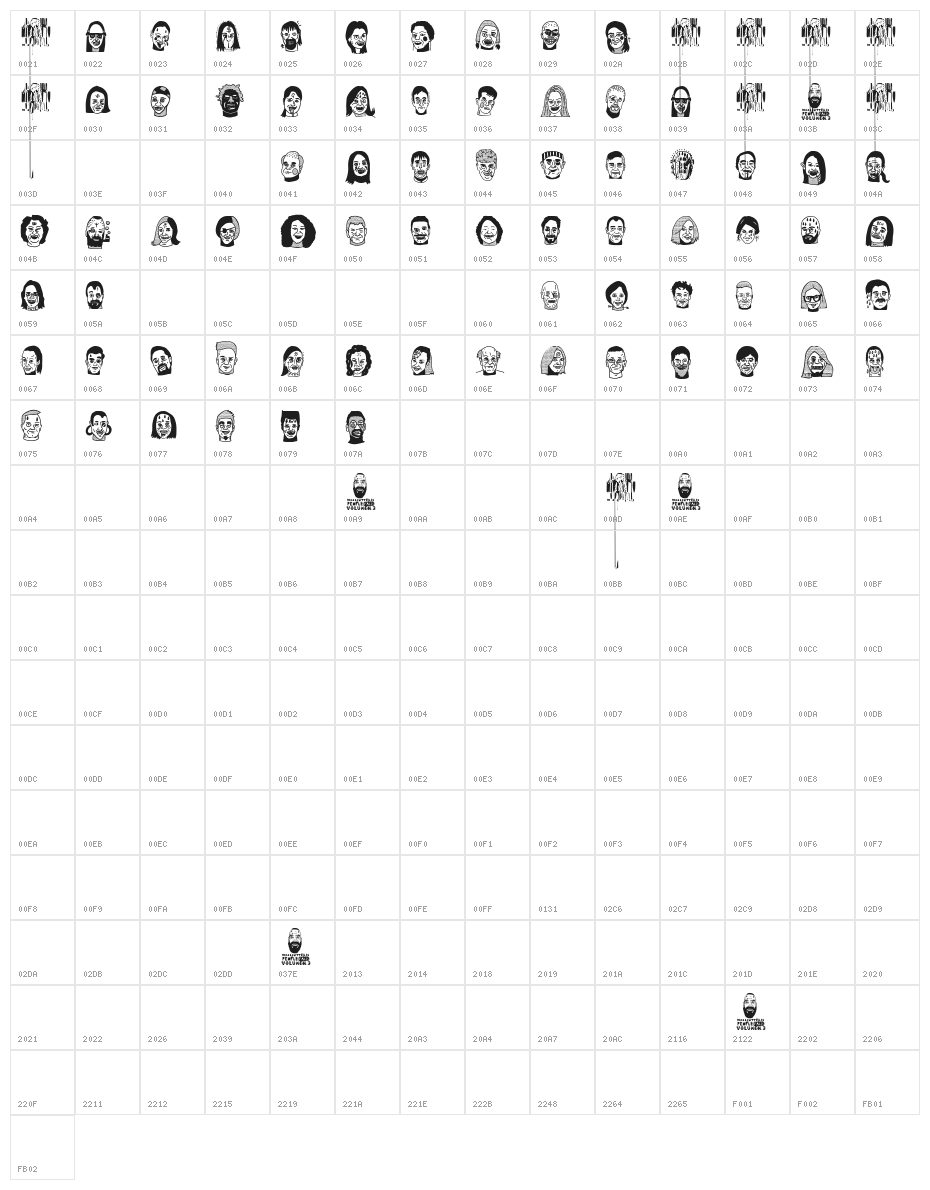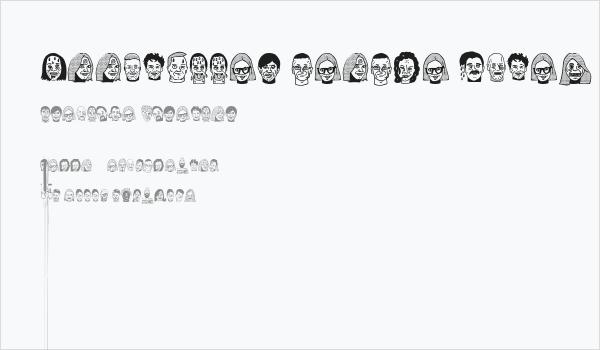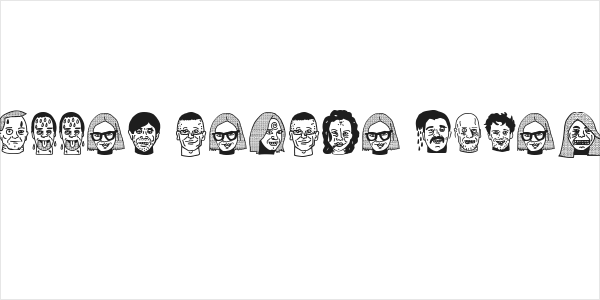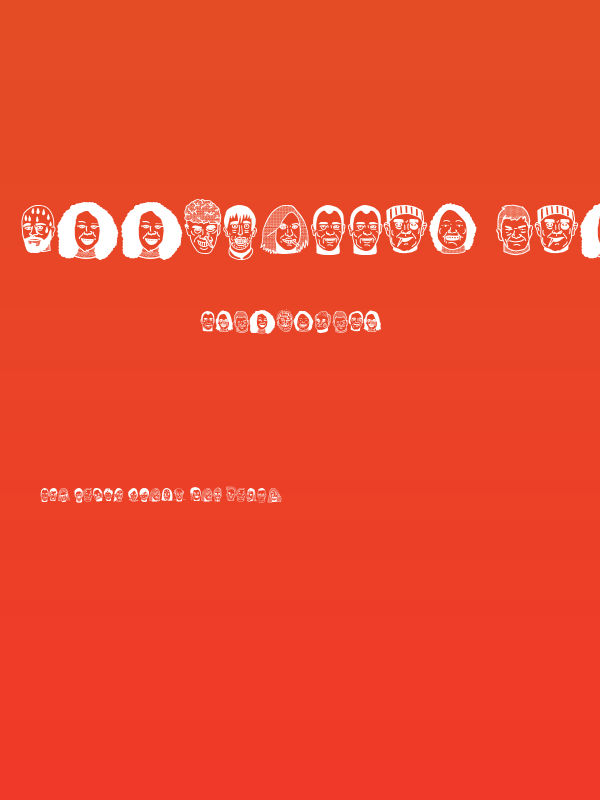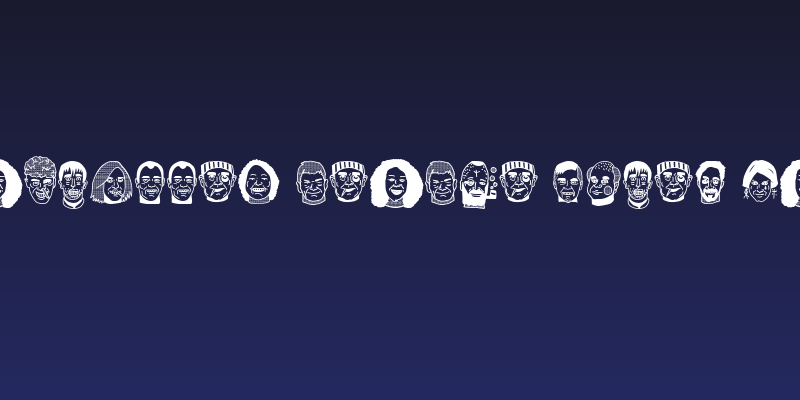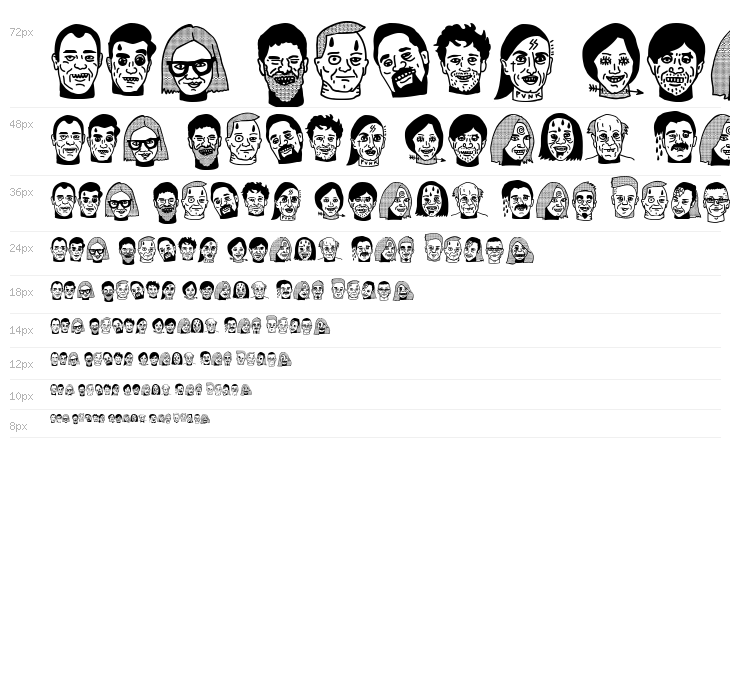
woodcutter people faces vol2 Font
woodcutter people faces vol2 Description
A collection of hand-drawn, black-and-white illustrated faces with exaggerated and whimsical features, each face unique in expression and style, presented in a playful and cartoonish manner.
| Overall Style | Decorative, Playful, Whimsical |
| Use Case | Illustrative projects, branding, creative displays, art prints. |
| Proposed Projects | Posters, album covers, editorial illustrations, zines, creative branding, stickers. |